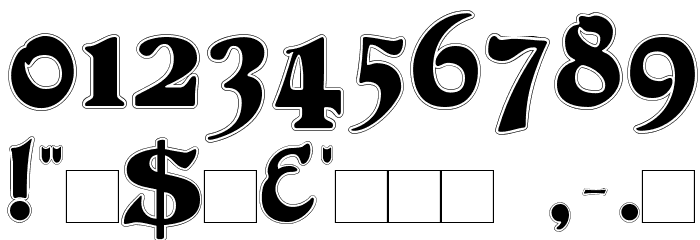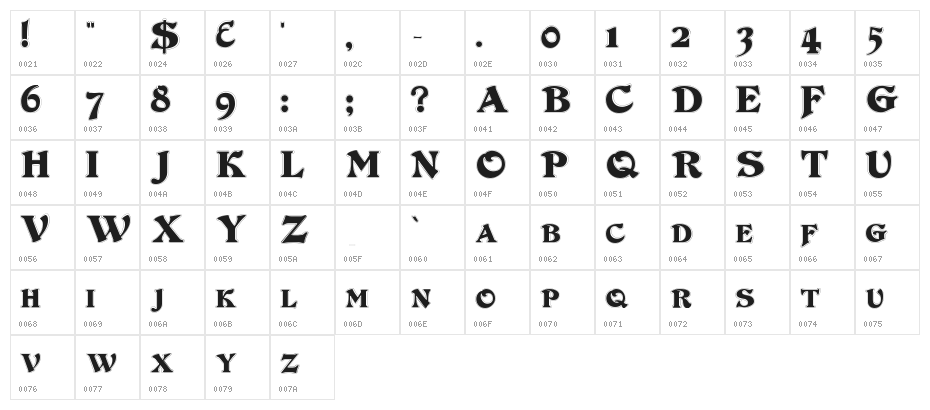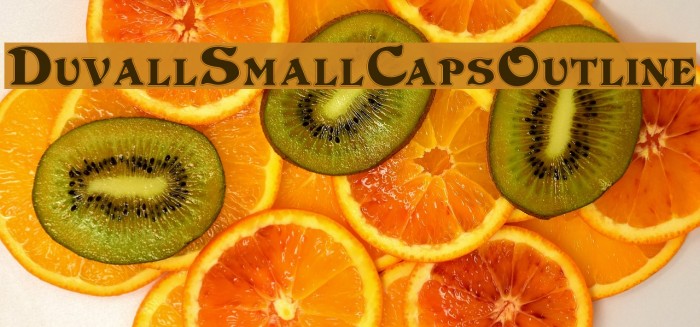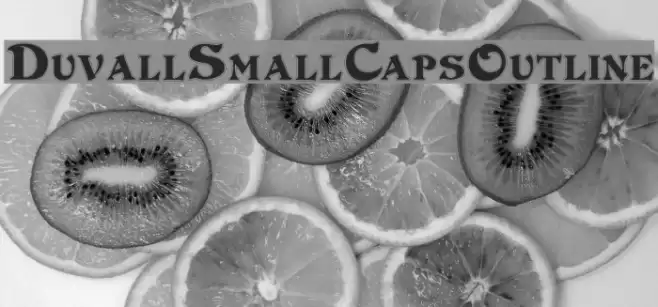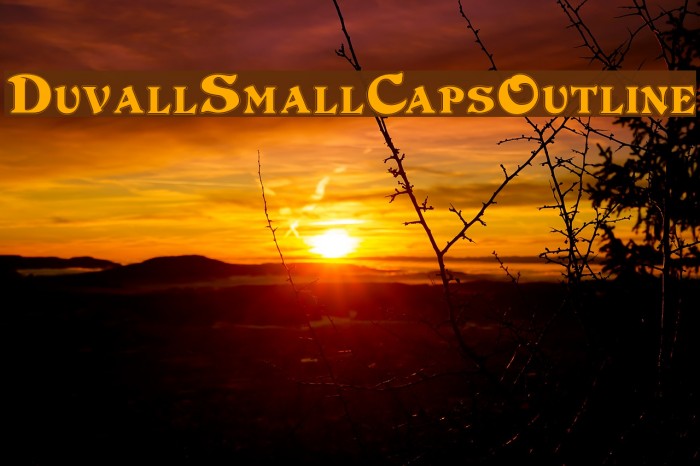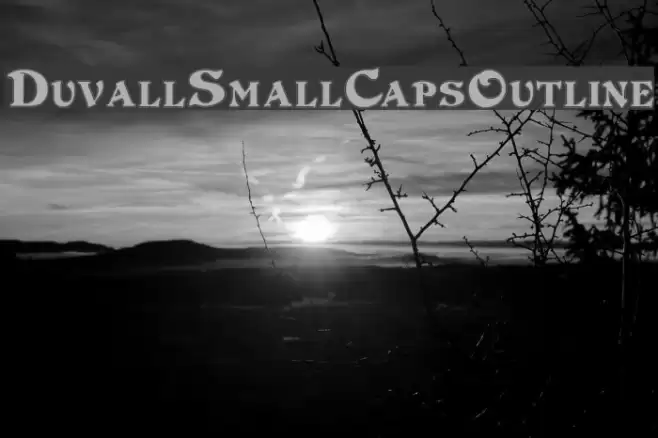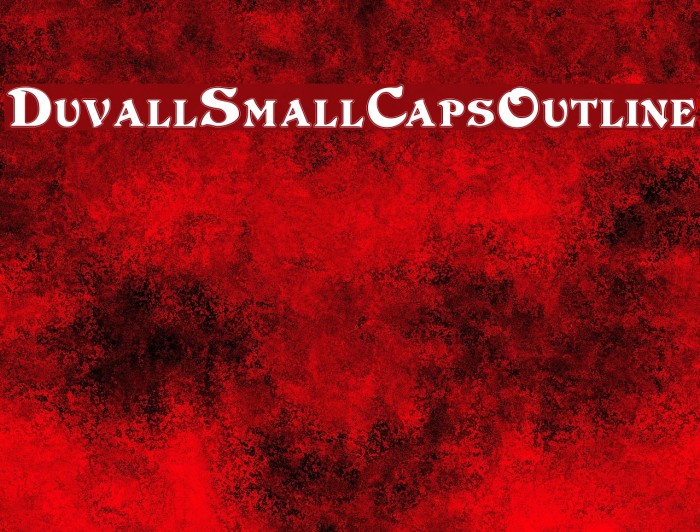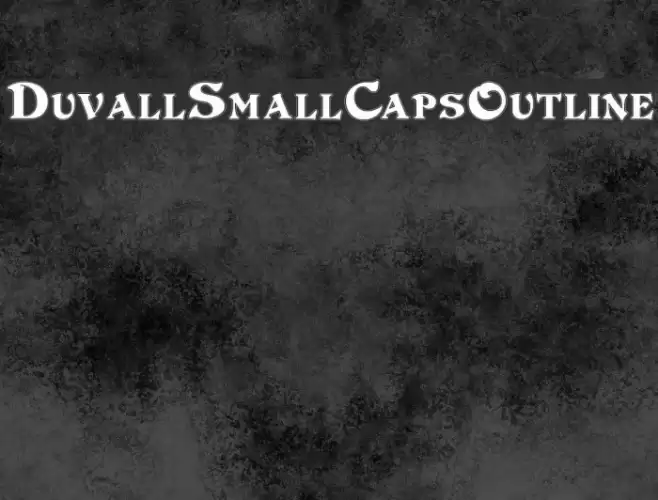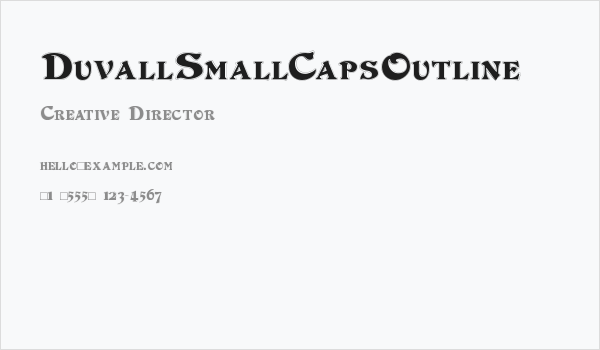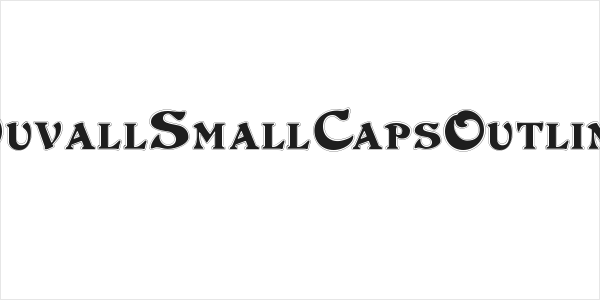
DuvallSmallCapsOutline Font
DuvallSmallCapsOutline Description
This font features a bold and striking outline style, giving each character a distinct and powerful presence. The uppercase letters are designed with a strong serif influence, adding a touch of elegance and tradition. The numbers and special characters maintain the same bold outline, ensuring consistency across all elements. The overall design is reminiscent of classic serif fonts but with a modern twist due to the outlined style, making it suitable for attention-grabbing headlines and titles.
| Proposed Projects | Ideal for use in branding, poster design, and any project requiring a strong, impactful typeface. |